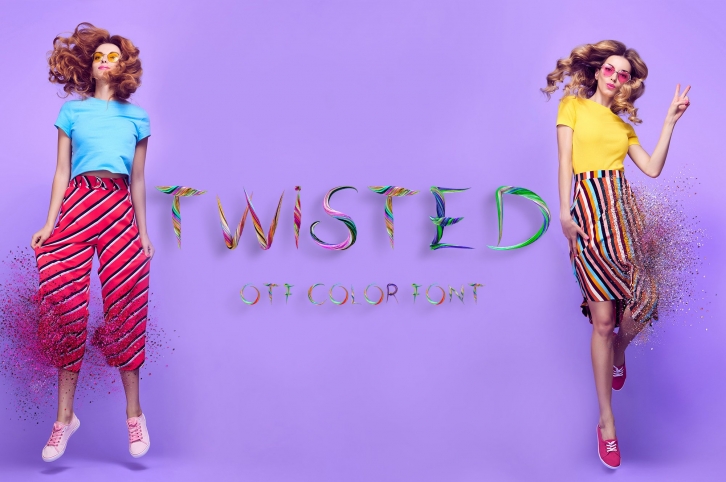
Twisted - otf color font Download
Twisted is a gorgeous font that was realeased on December 13, 2020. The font can be used in many style contexts and design environments. Perfect for invitations, magazines, websites, logos, and more! It was designed by FaeryDesign and the file size is 4.3 MB. Thanks for checking out this font!